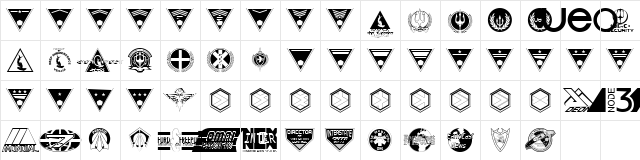
Beneath the Surface Dingbats Regular
Design Context for Beneath the Surface Dingbats Typeface
Beneath the Surface Dingbats takes a measured approach to typography — its balanced proportions and neutral character make it a reliable workhorse for both digital and print work.